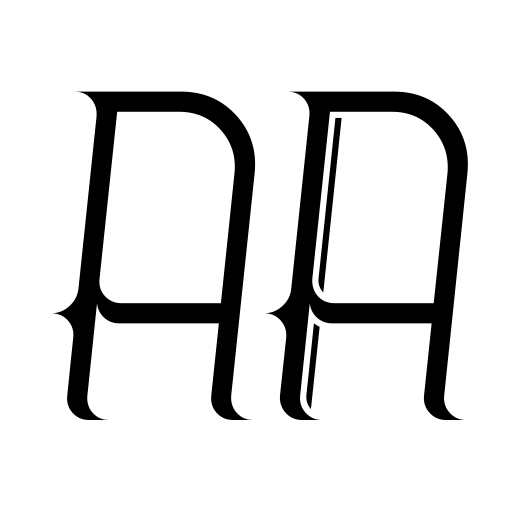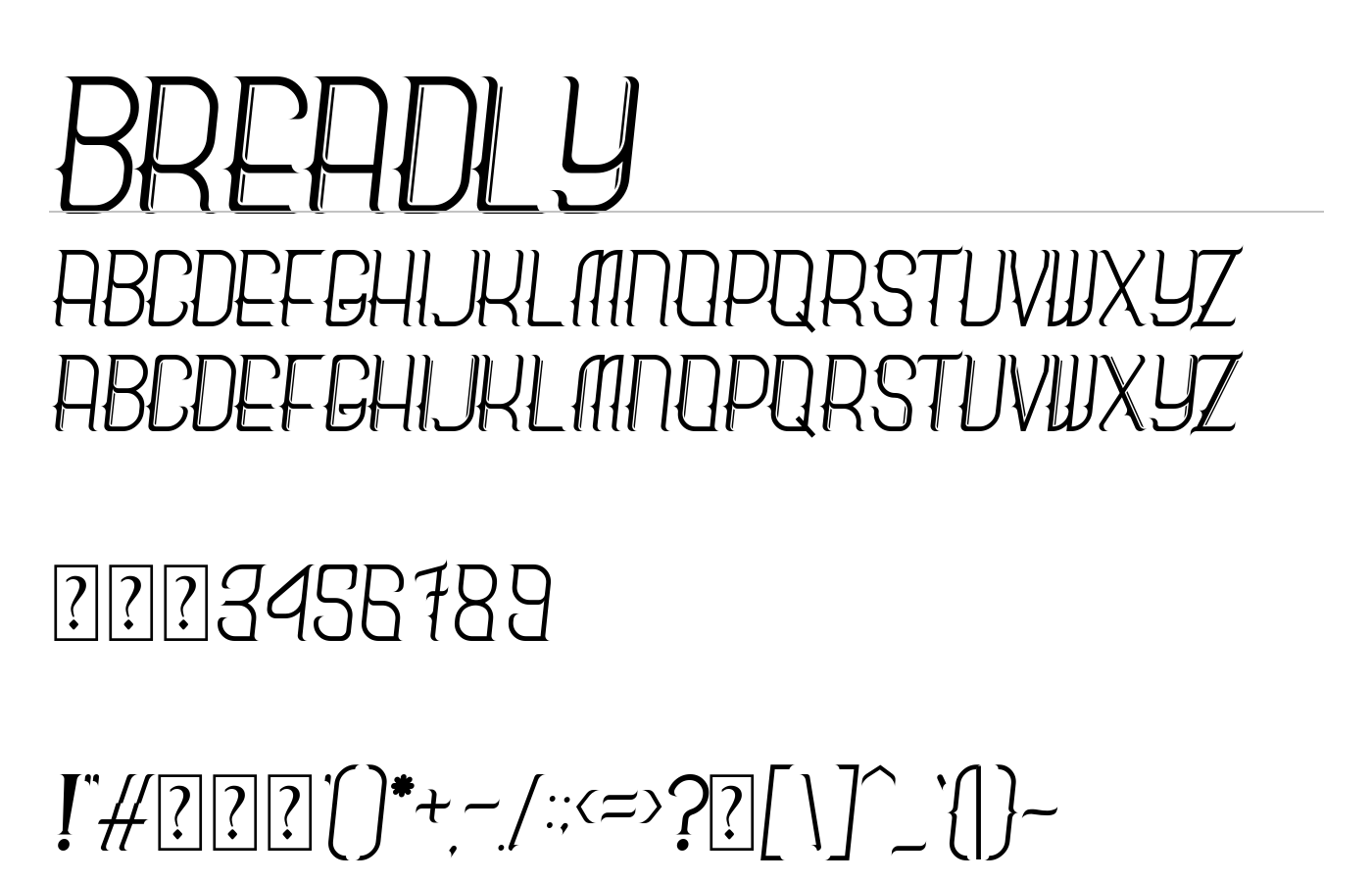
Breadly is a narrow, stylized sans serif font with a modern and slightly futuristic feel, featuring distinct sharp strokes and an elegant, condensed structure. Its tall, uniform letterforms with subtle angled terminals and high contrast between thin and thicker lines give it a sleek, sophisticated personality ideal for contemporary branding, headlines, and editorial designs that seek a unique yet refined appearance.
Breadly Font
About Breadly Font